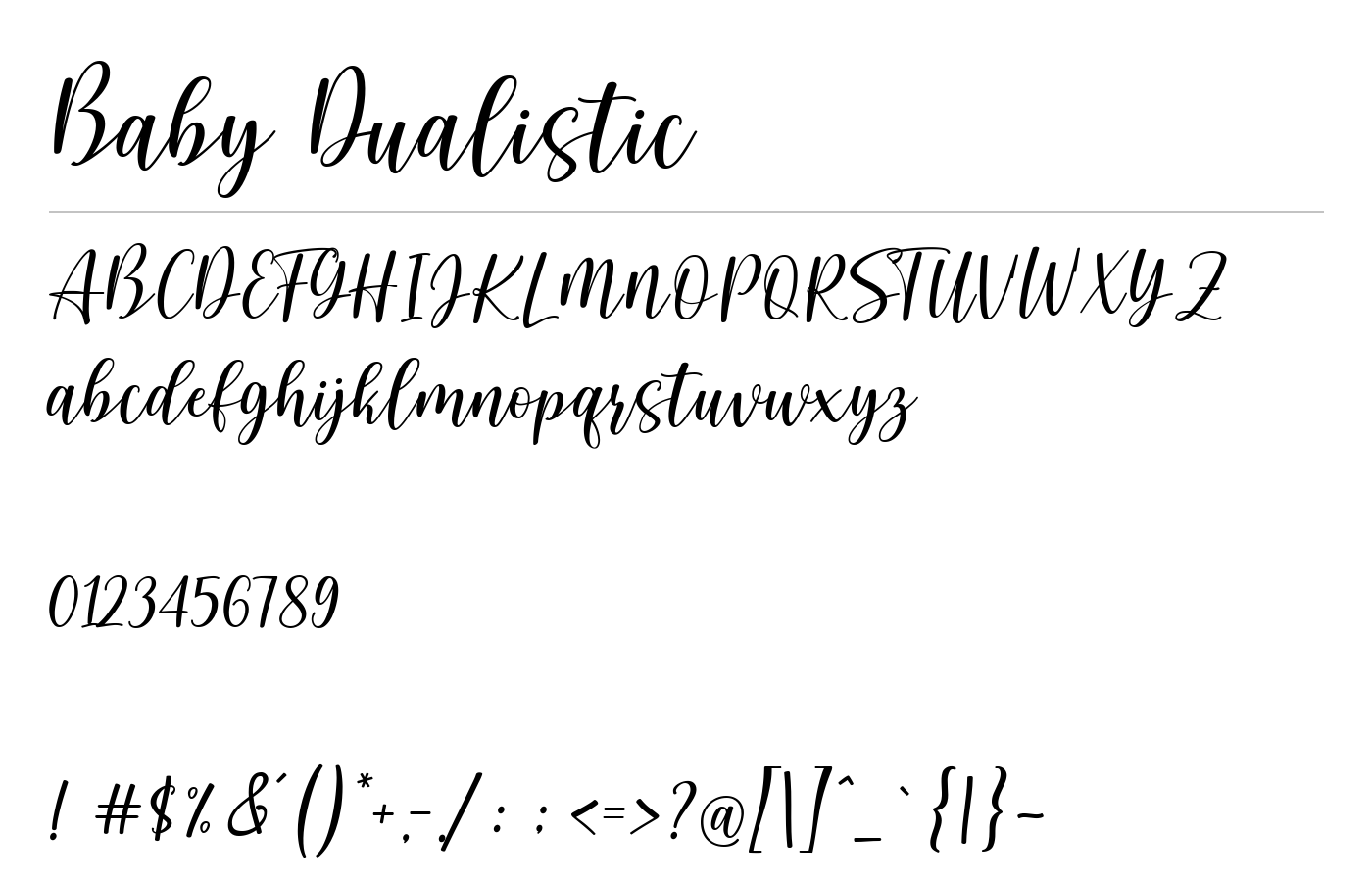
Baby Dualistic is an elegant script font with a flowing, handwritten style that combines light stroke weight and delicate curves, giving it a graceful and modern feel. Its tall, narrow letterforms and smooth connections make it ideal for feminine branding, invitations, and stylish headlines where a personal, artistic touch is desired. This font works beautifully in projects that aim to appear refined yet approachable, blending classic calligraphy charm with contemporary flair.
Baby Dualistic Font